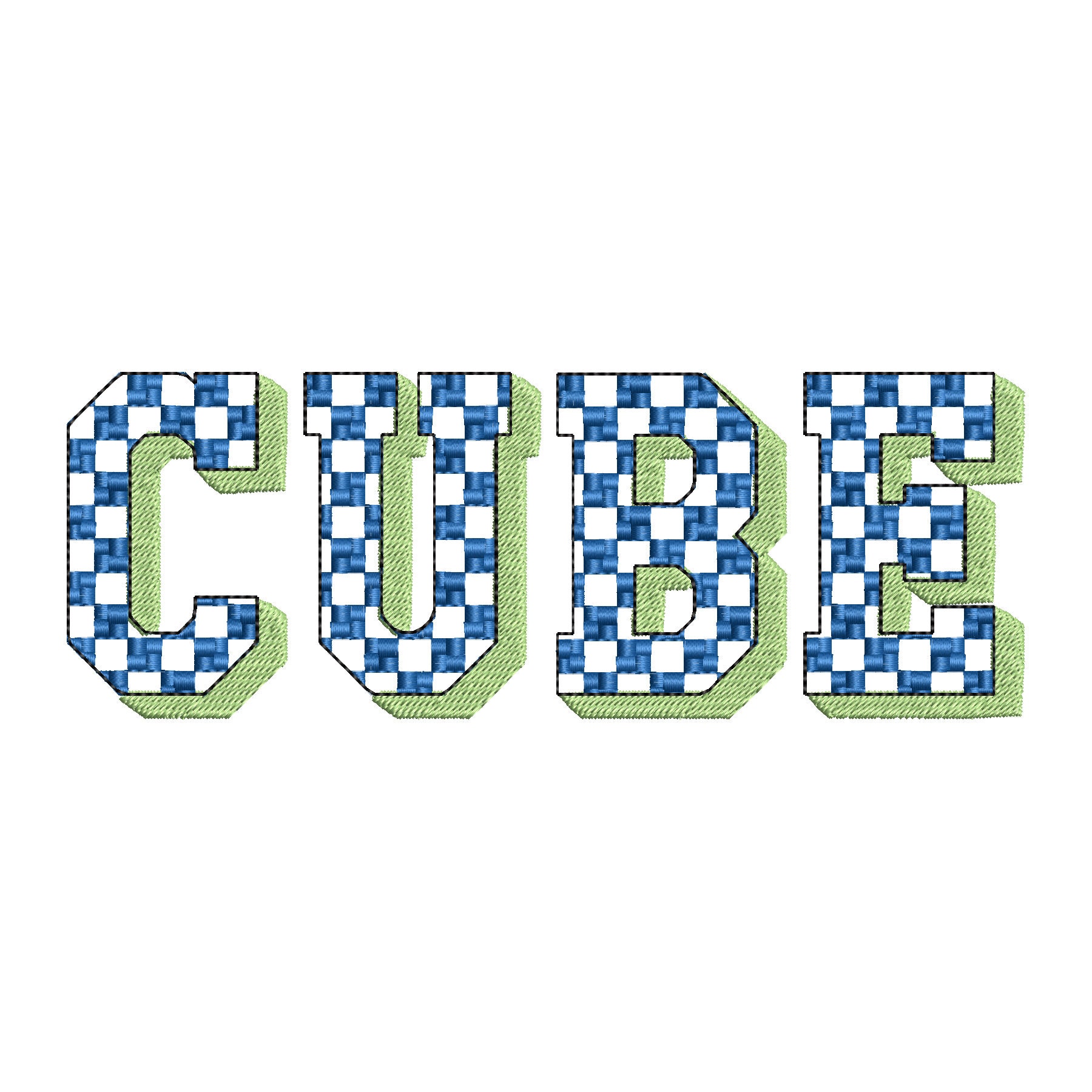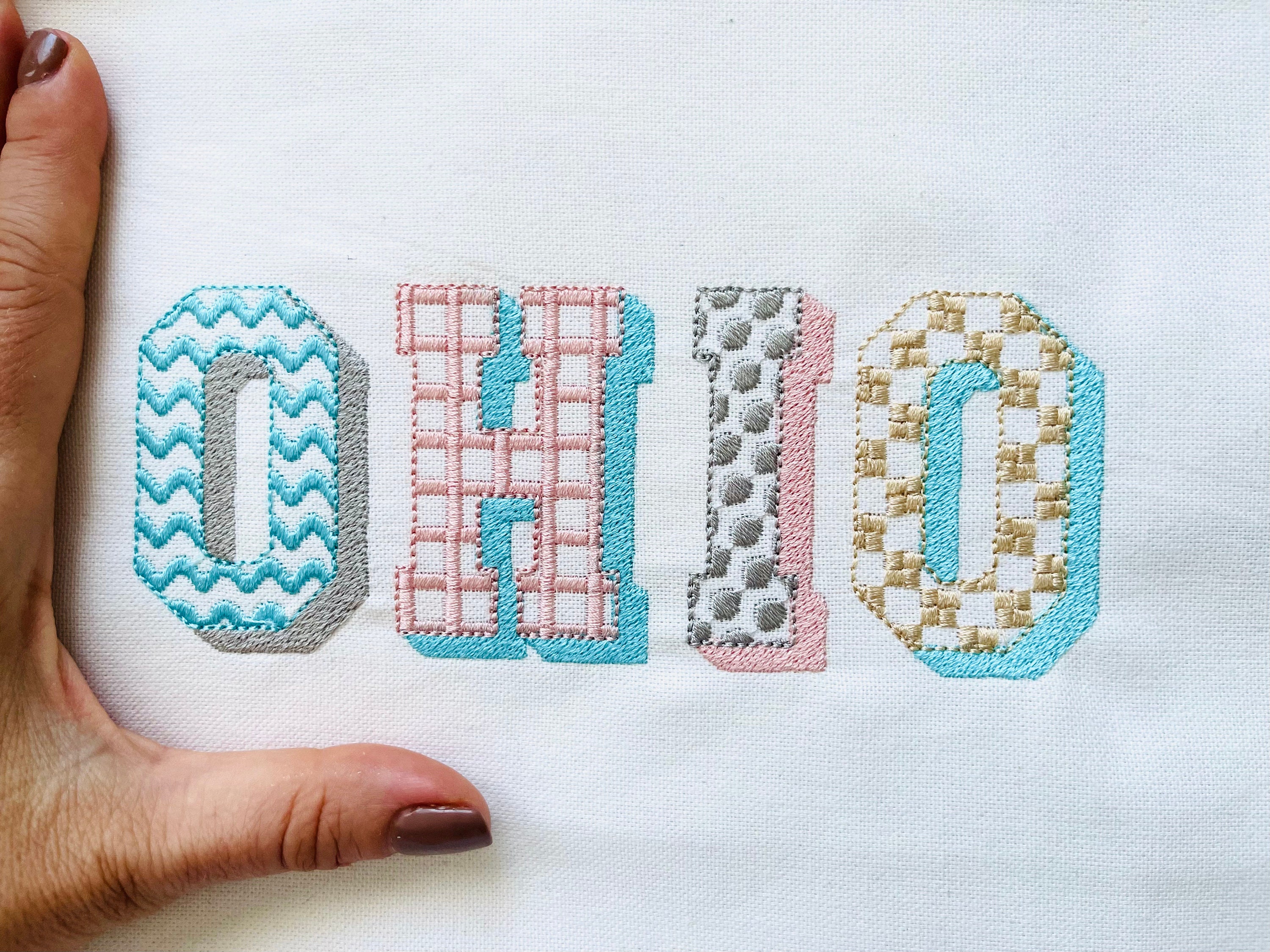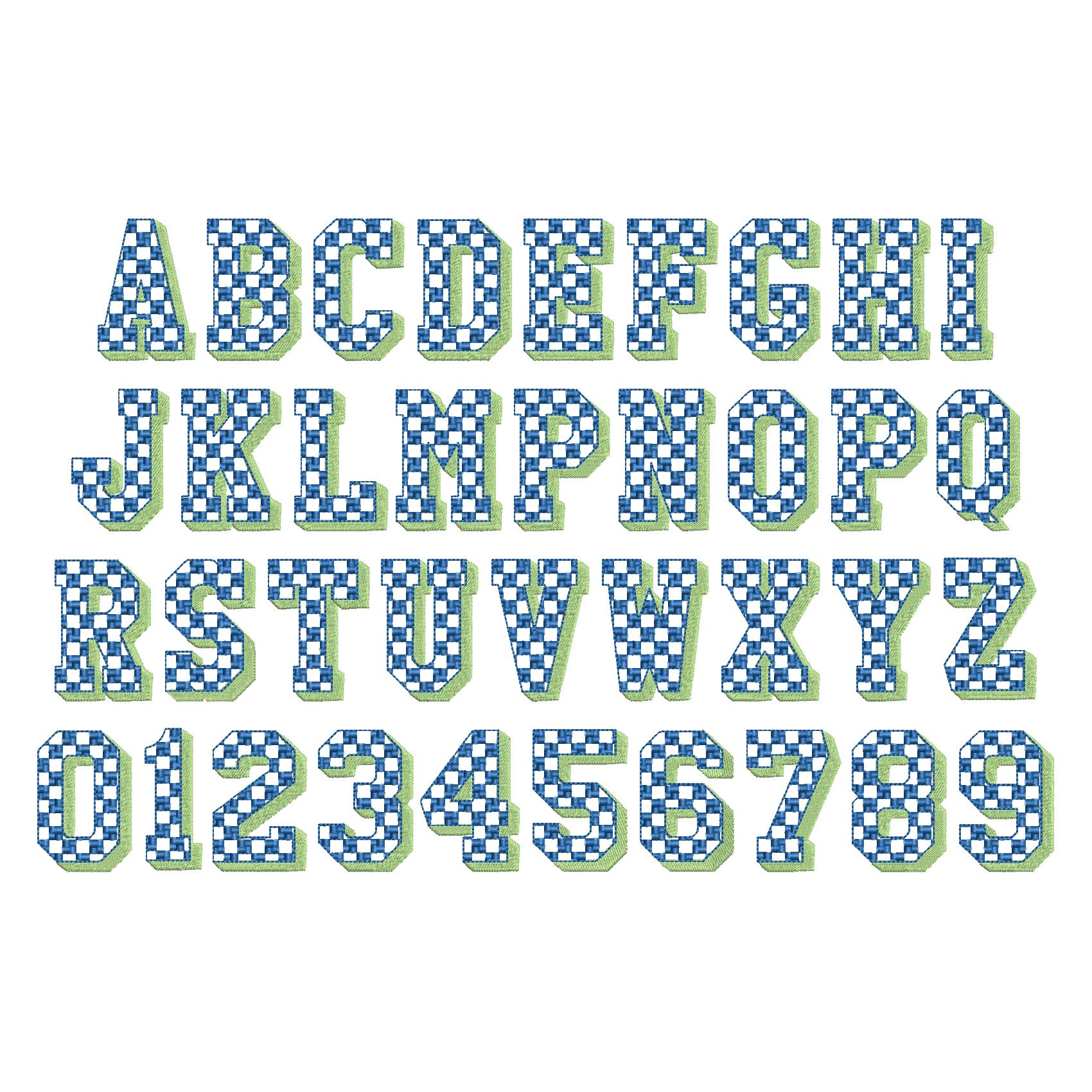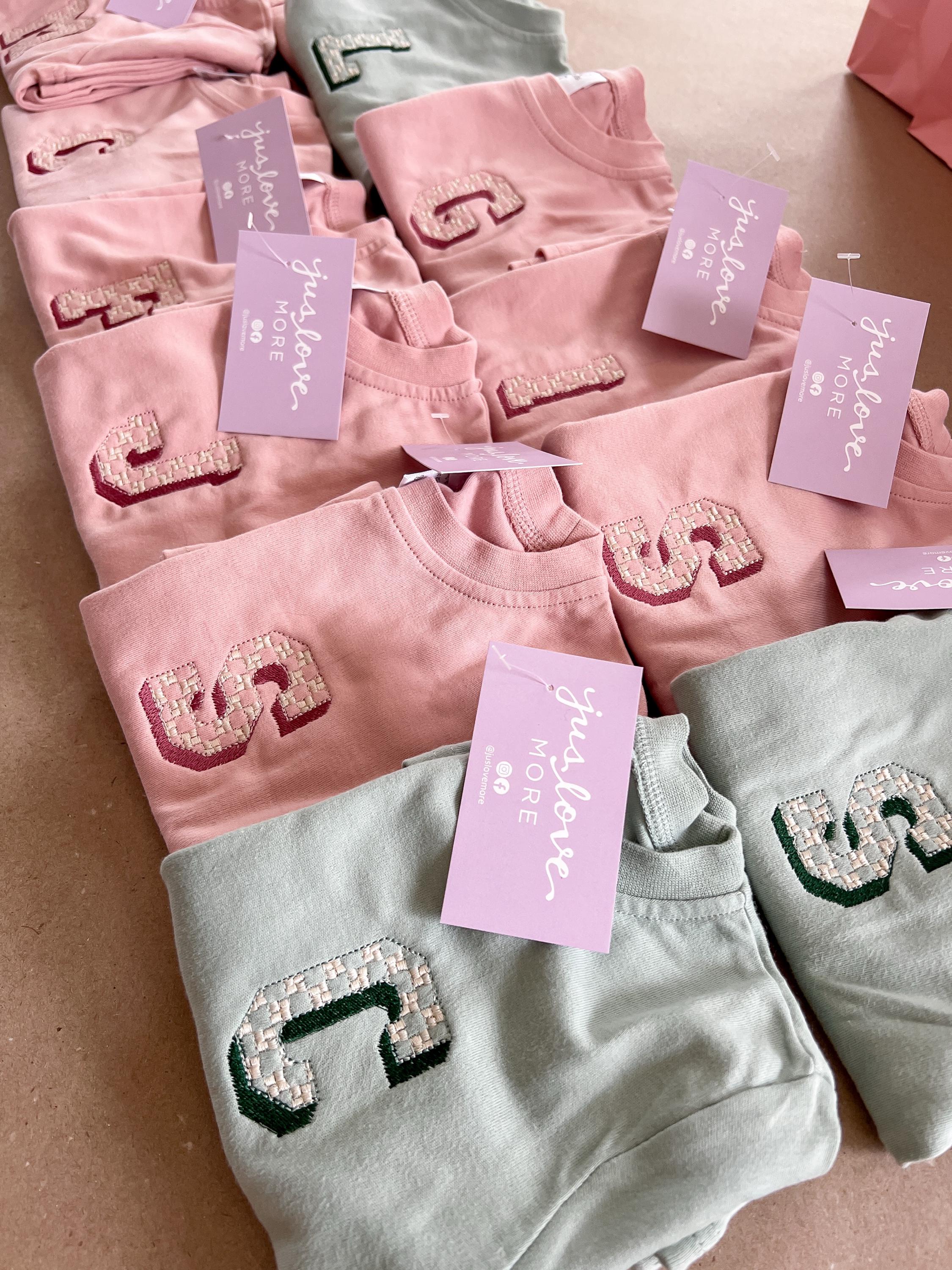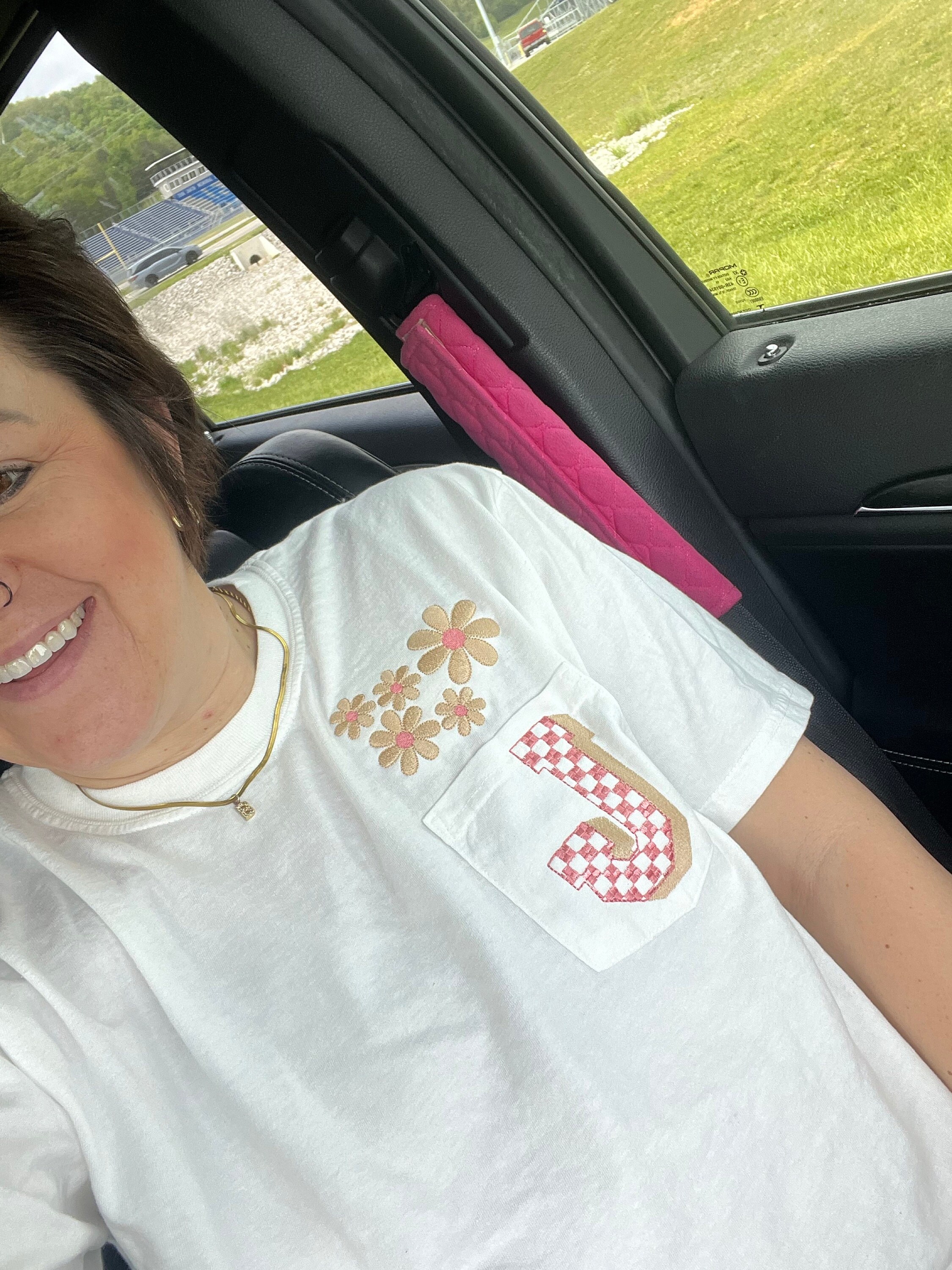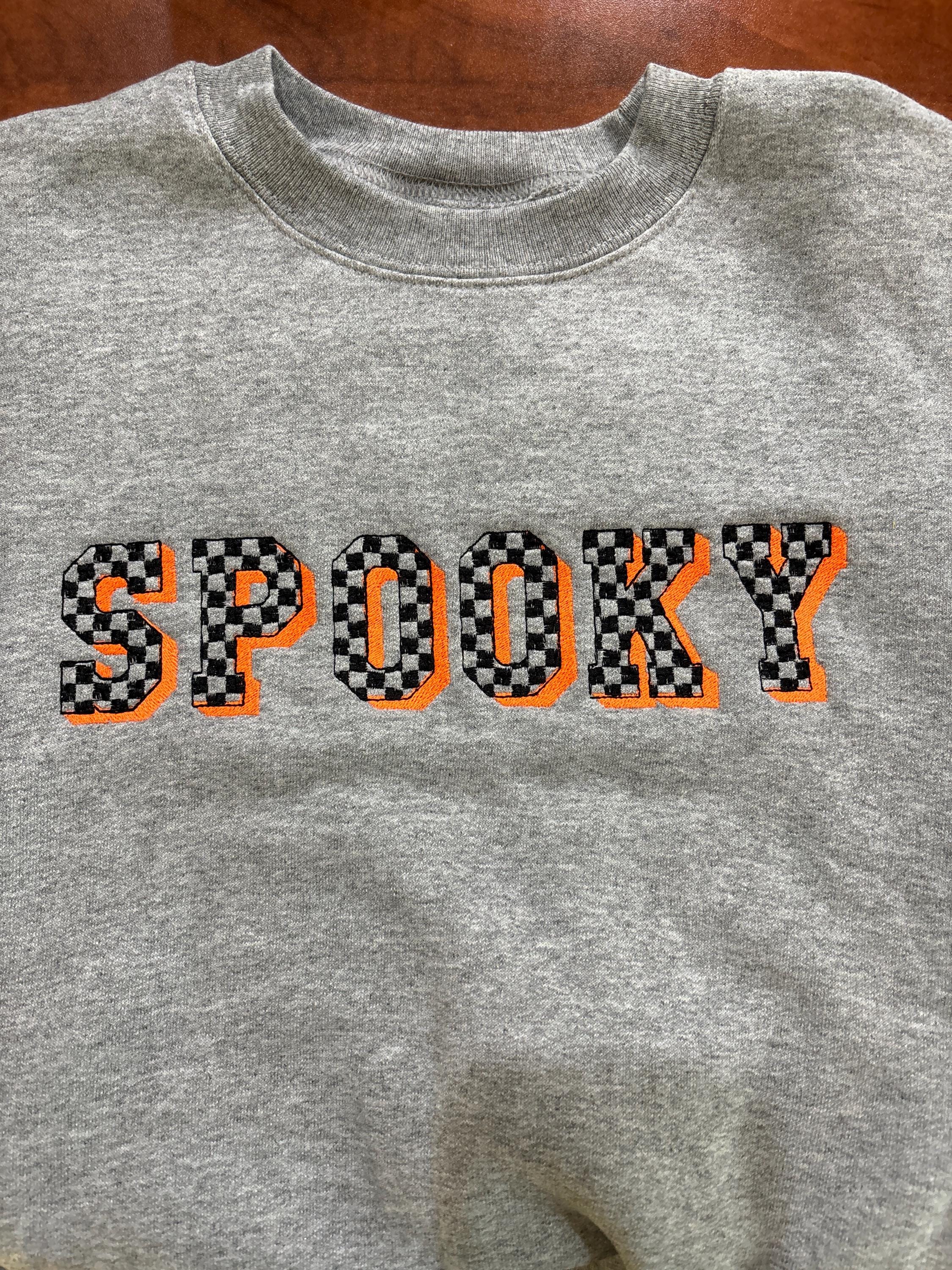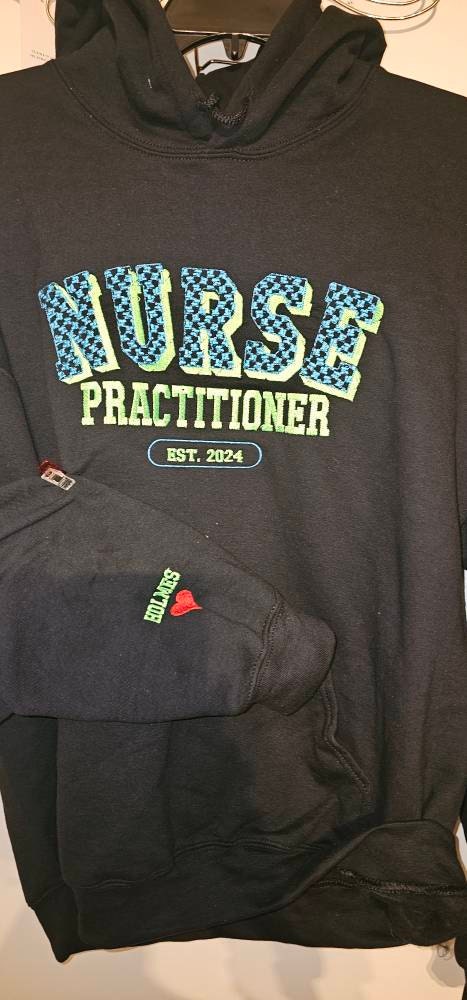
Cube Patterned Font 3 three colors Shadow Alphabet letters and numbers machine embroidery design assorted sizes square block shadowed font
The font is transparent and has fill stitch cube and shadow, and a bean stitch outline.
Whole alphabet uppercase A-Z and numbers 0-9